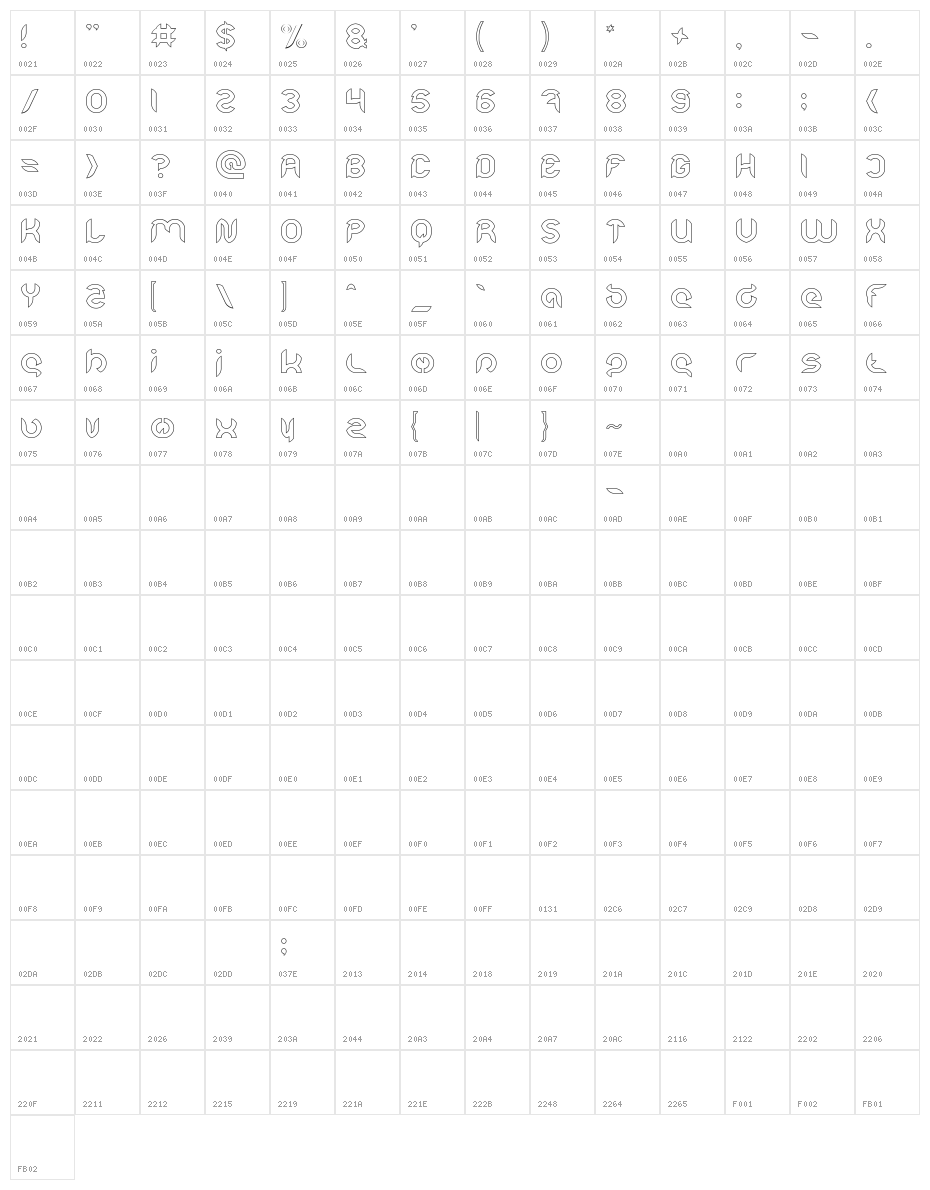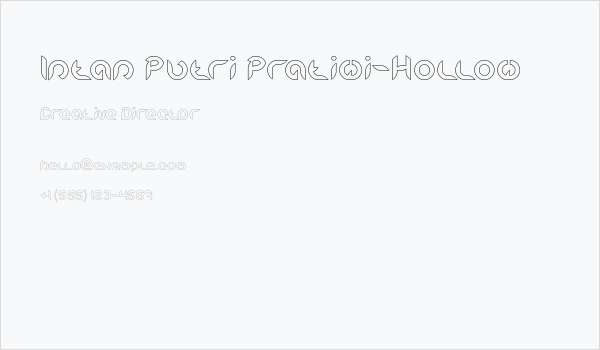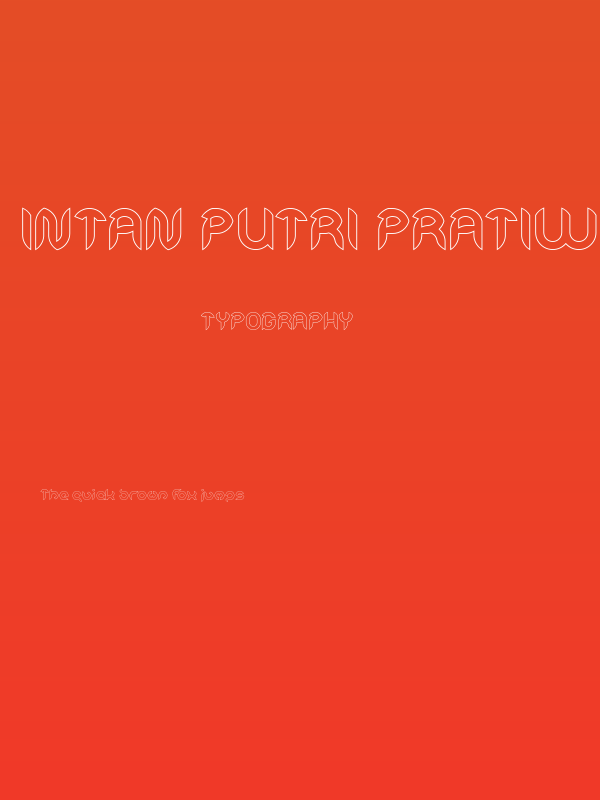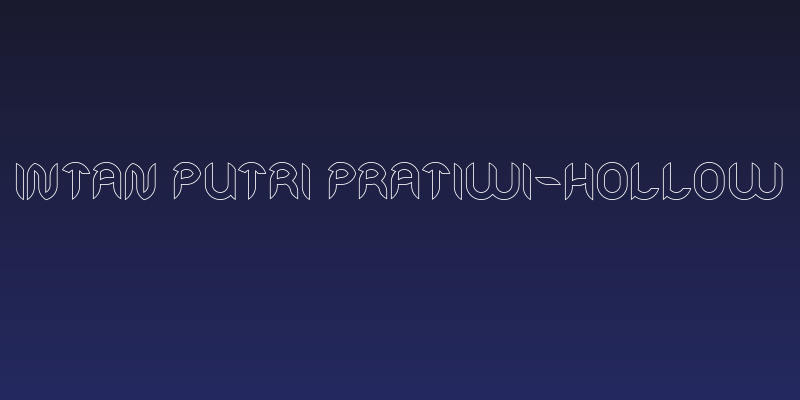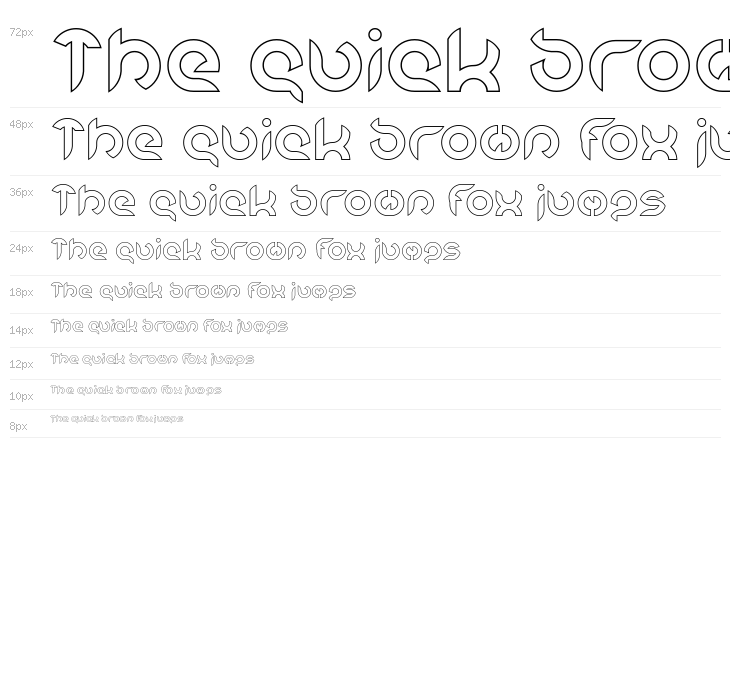
Intan Putri Pratiwi-Hollow Font
Intan Putri Pratiwi-Hollow Description
This font features a unique hollow design with a futuristic and geometric style. Each character is outlined, creating a hollow effect that gives a sense of depth and dimension. The angular and sharp edges of the letters contribute to a modern and edgy appearance. The uppercase and lowercase letters maintain a consistent style, with a slight variation in the curves and angles to distinguish them. Numbers and special characters follow the same design principles, ensuring uniformity across the font. The overall look is bold and eye-catching, making it suitable for creative and contemporary projects.
| Proposed Projects | Ideal for sci-fi themed designs, modern branding, digital artwork, and eye-catching posters. |